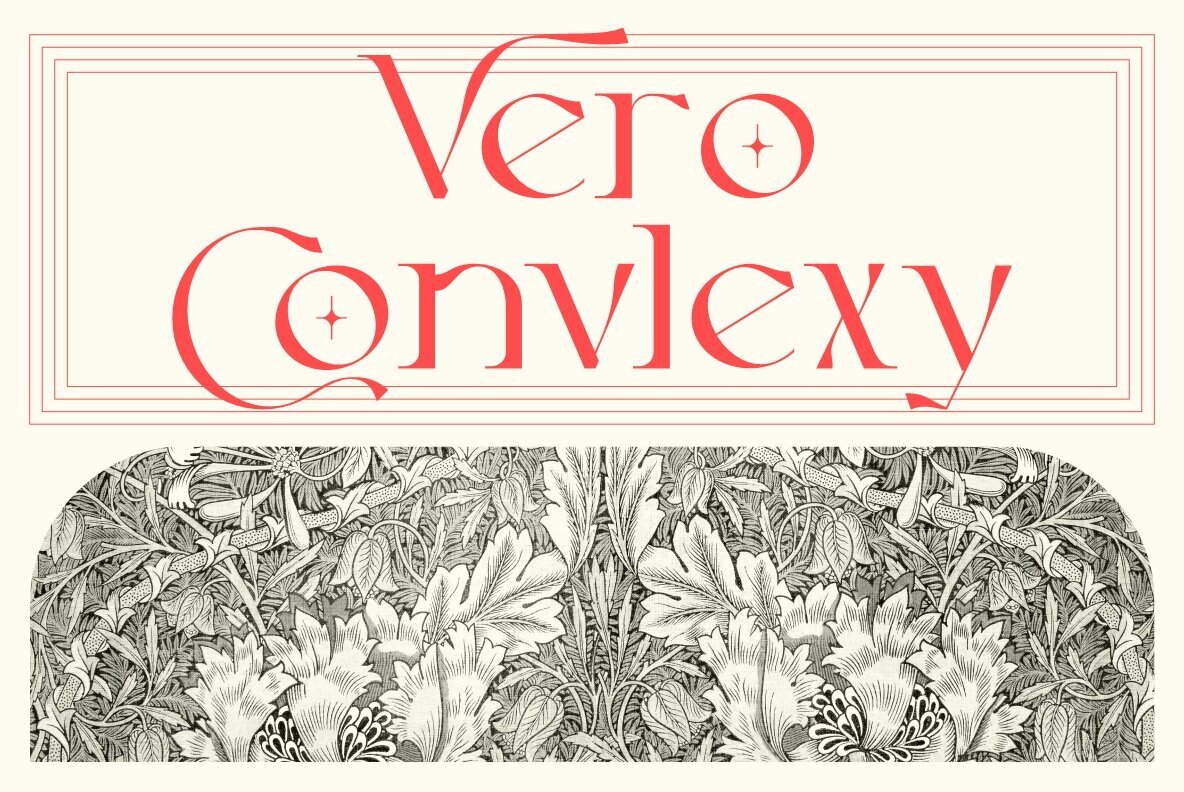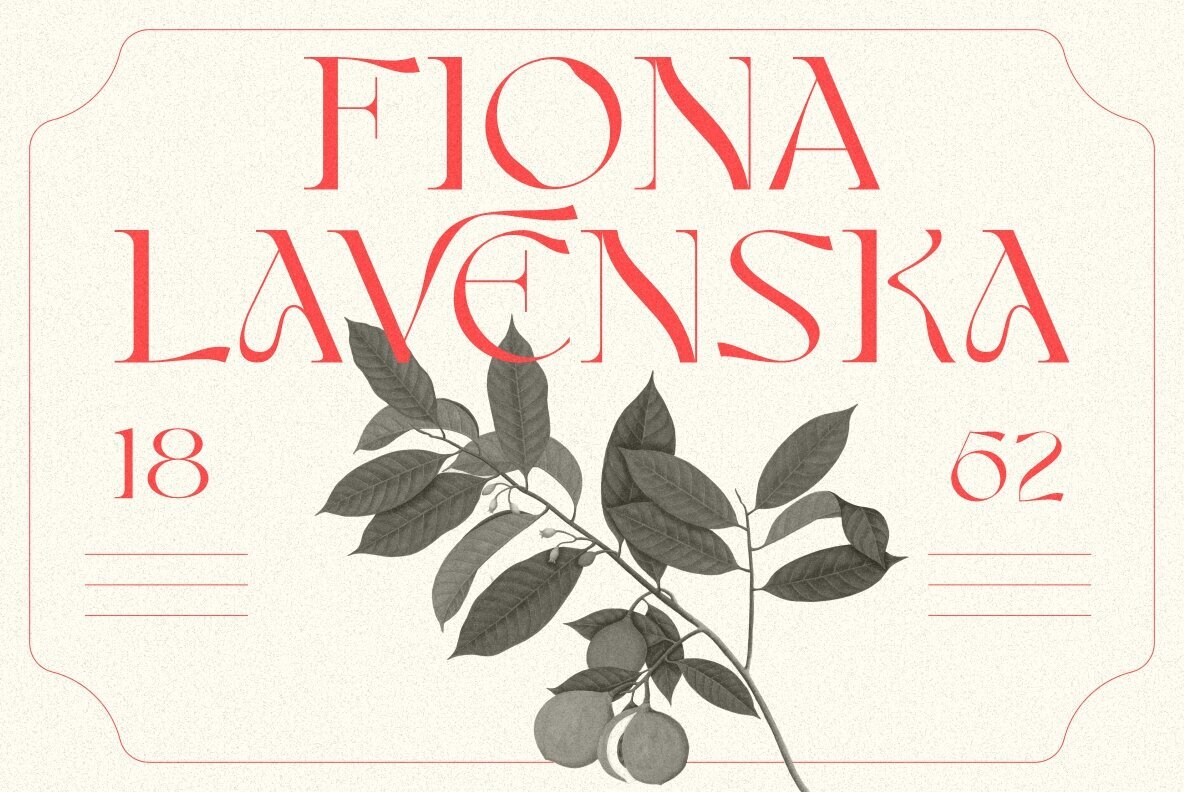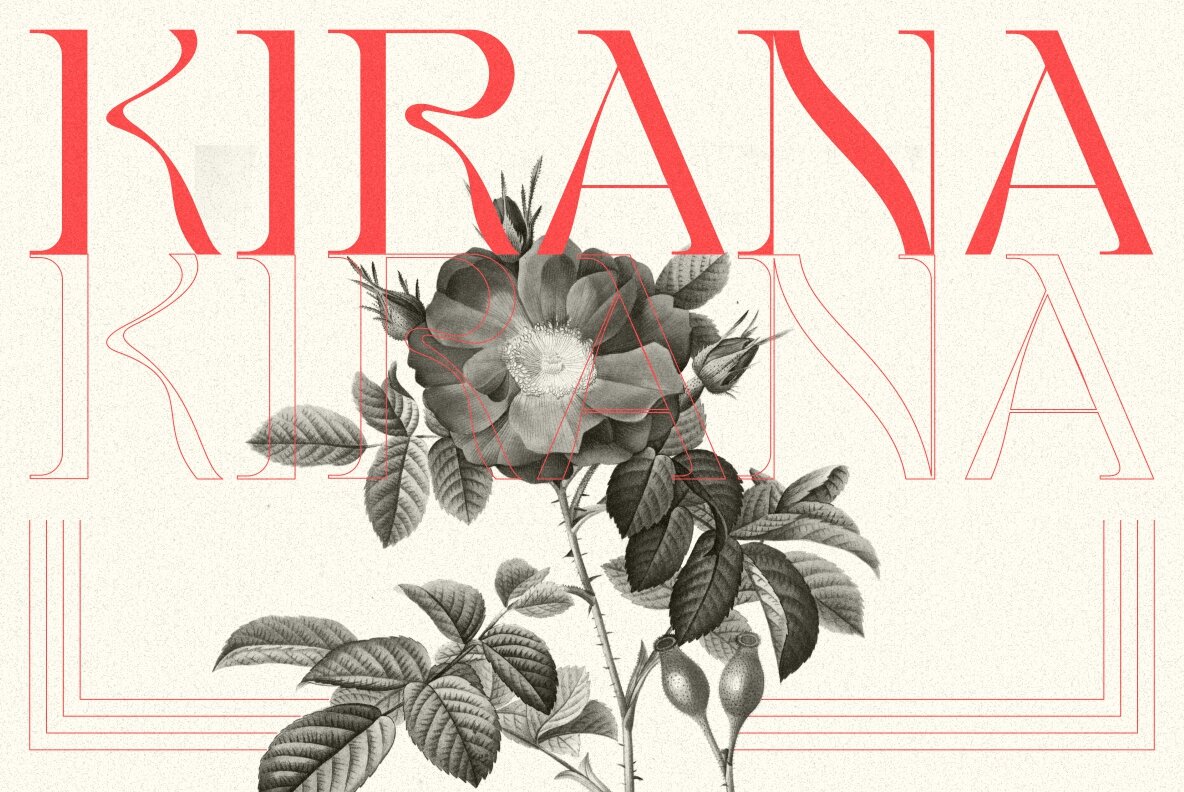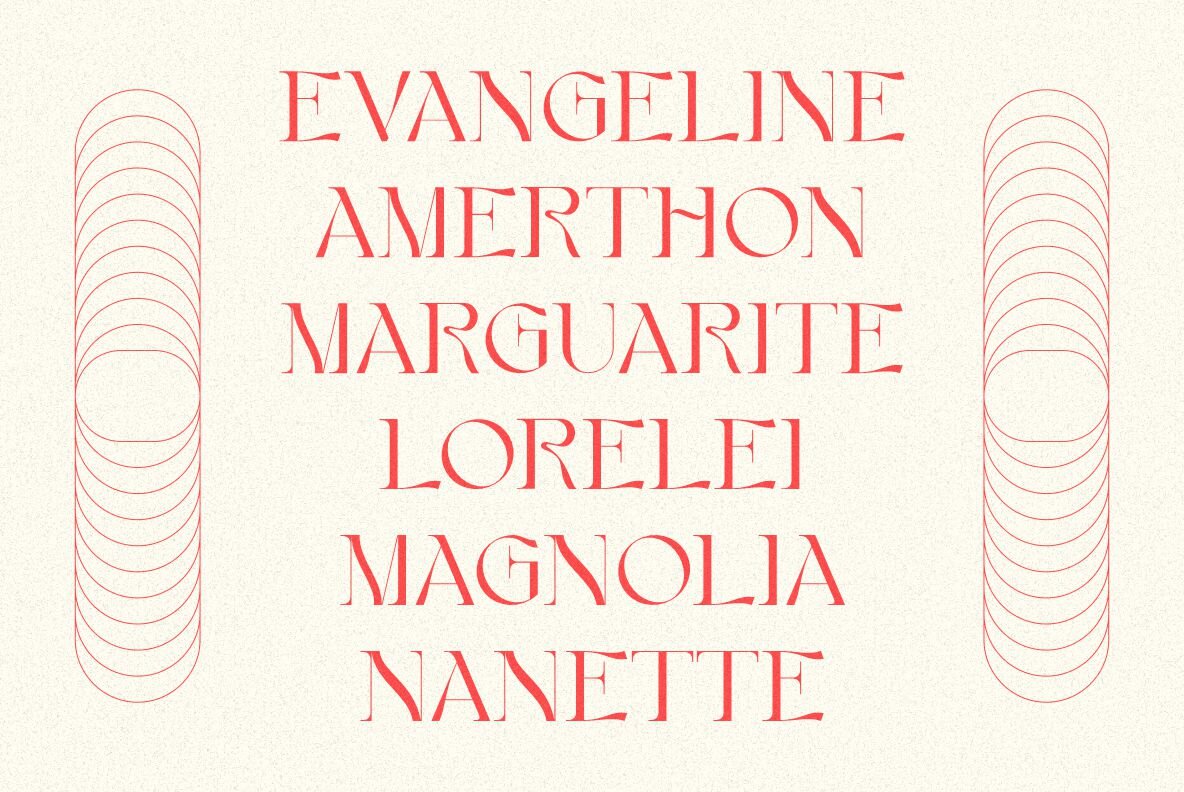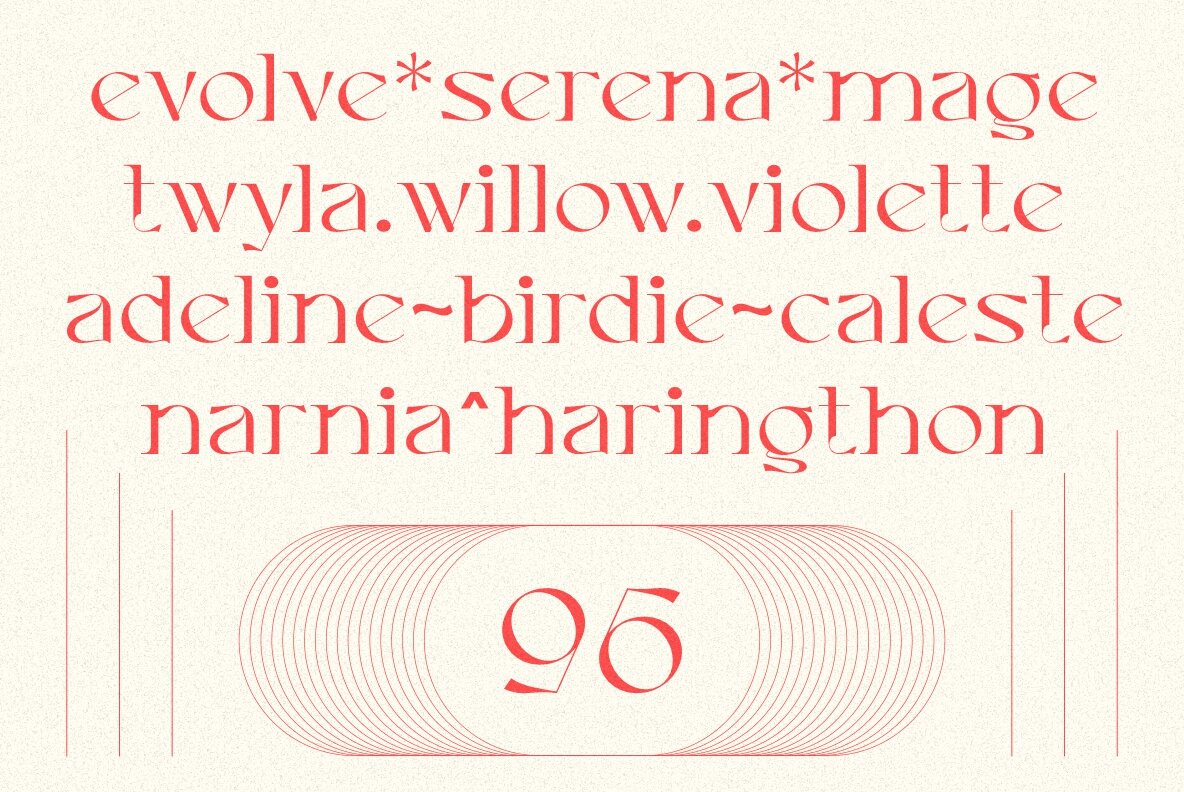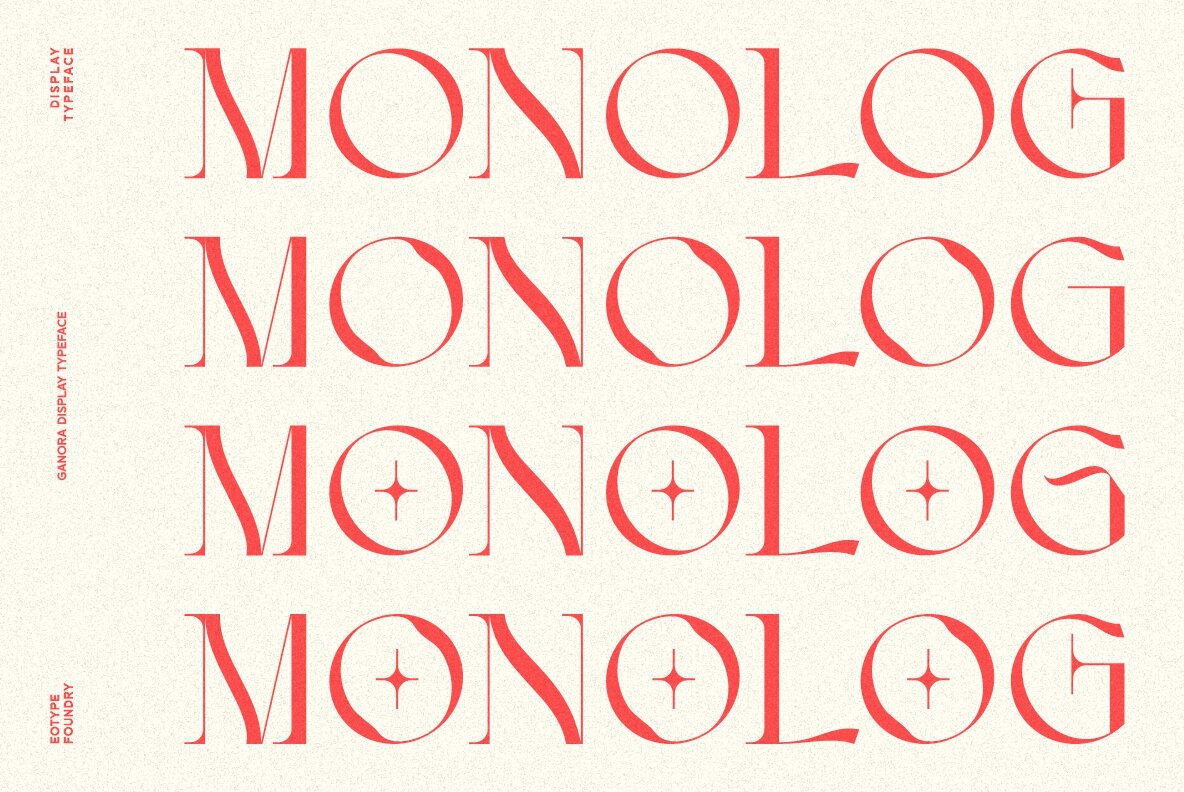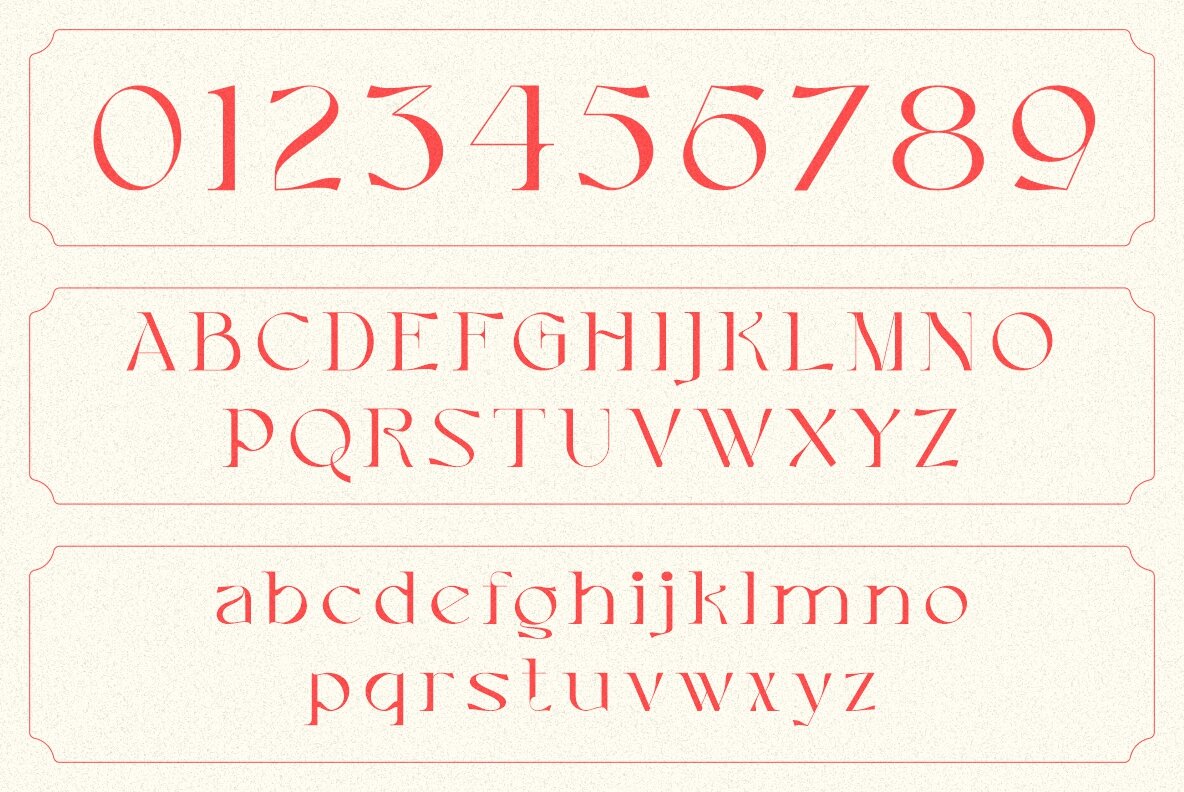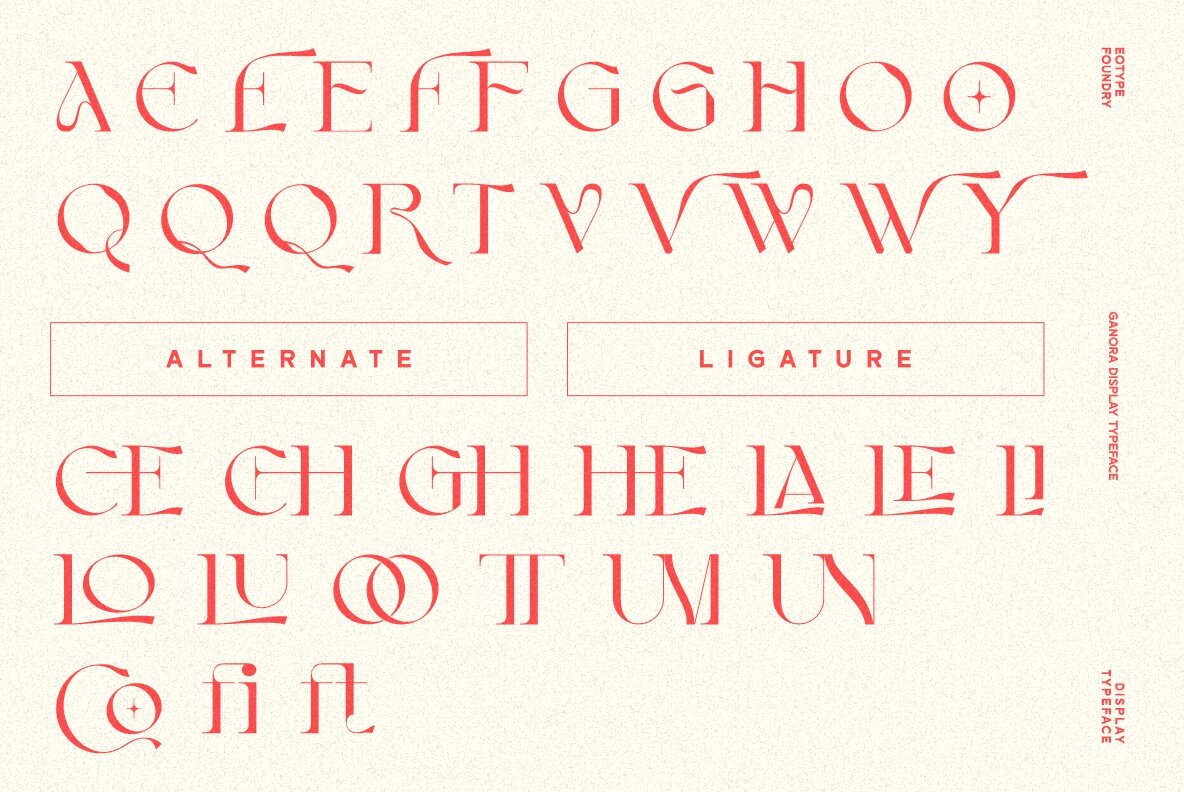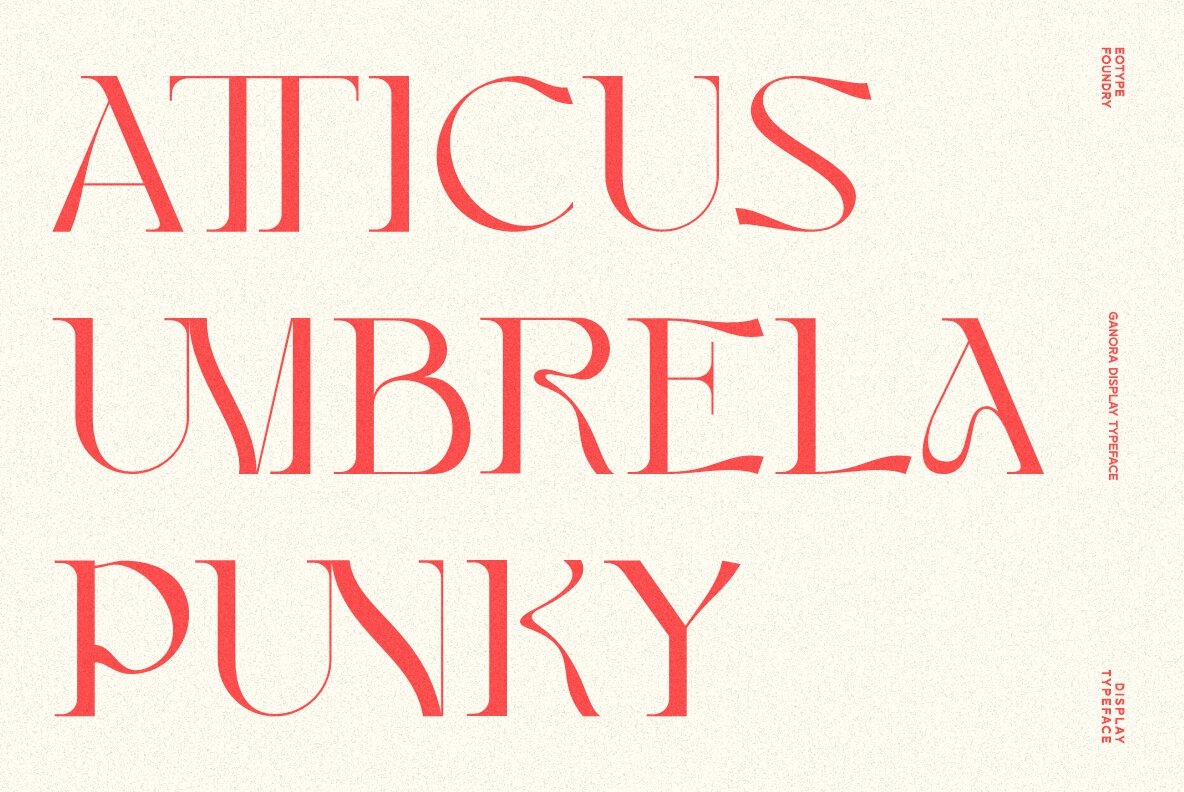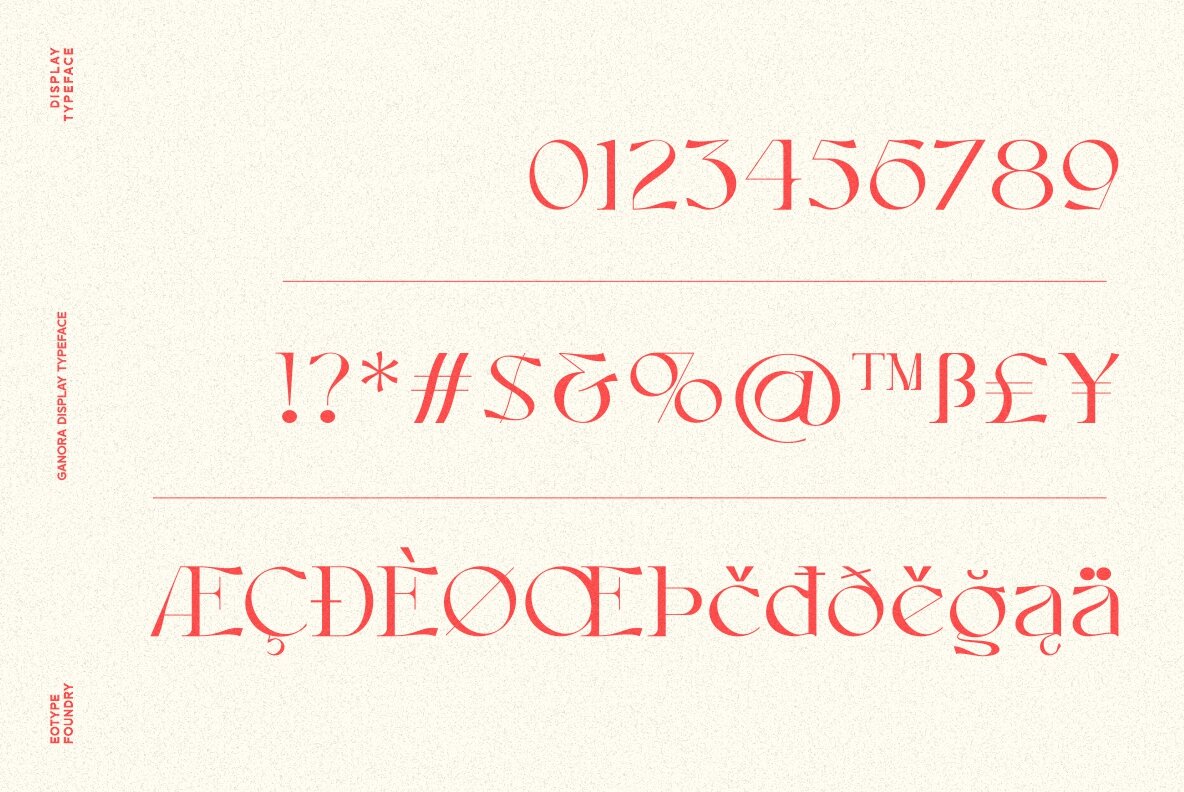
Ganora: A Semi-Serif With Aesthetic Flair
Ganora exudes a harmonious blend of traditional serif legibility and contemporary elegance, making it an exceptional choice for designers seeking distinction. Its decorative nature imbues projects with a unique aesthetic, seamlessly balancing timeless sophistication with modern curves.
• Alternate Characters – Offers a variety of stylistic options.
• Ligatures – Enhances typography flow and cohesion.
• Versatile Applications – Ideal for logos, magazines, and branding initiatives.